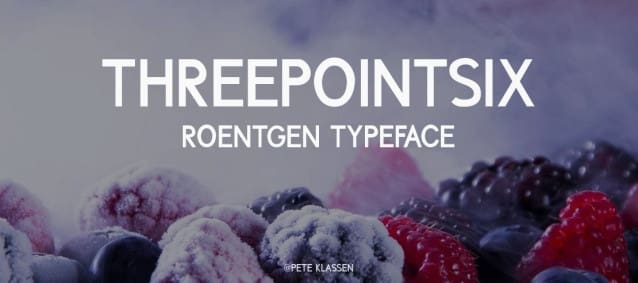
Three Point Six Roentgen Font
The Three Point Six Roentgen font is inspired by HBO/Sky’s TV miniseries “Chernobyl”. This version is the Caps version of the characters, i.e., there are only capital letters in this font, as opposed to the original font from the series, which also contains the lowercase letters.
The font contains the following character tables:
– Latin alphabet (the usual)
– Extended Western characters (accent characters like í, ä)
– Numbers, punctuation etc.
Also, the font has kerning.